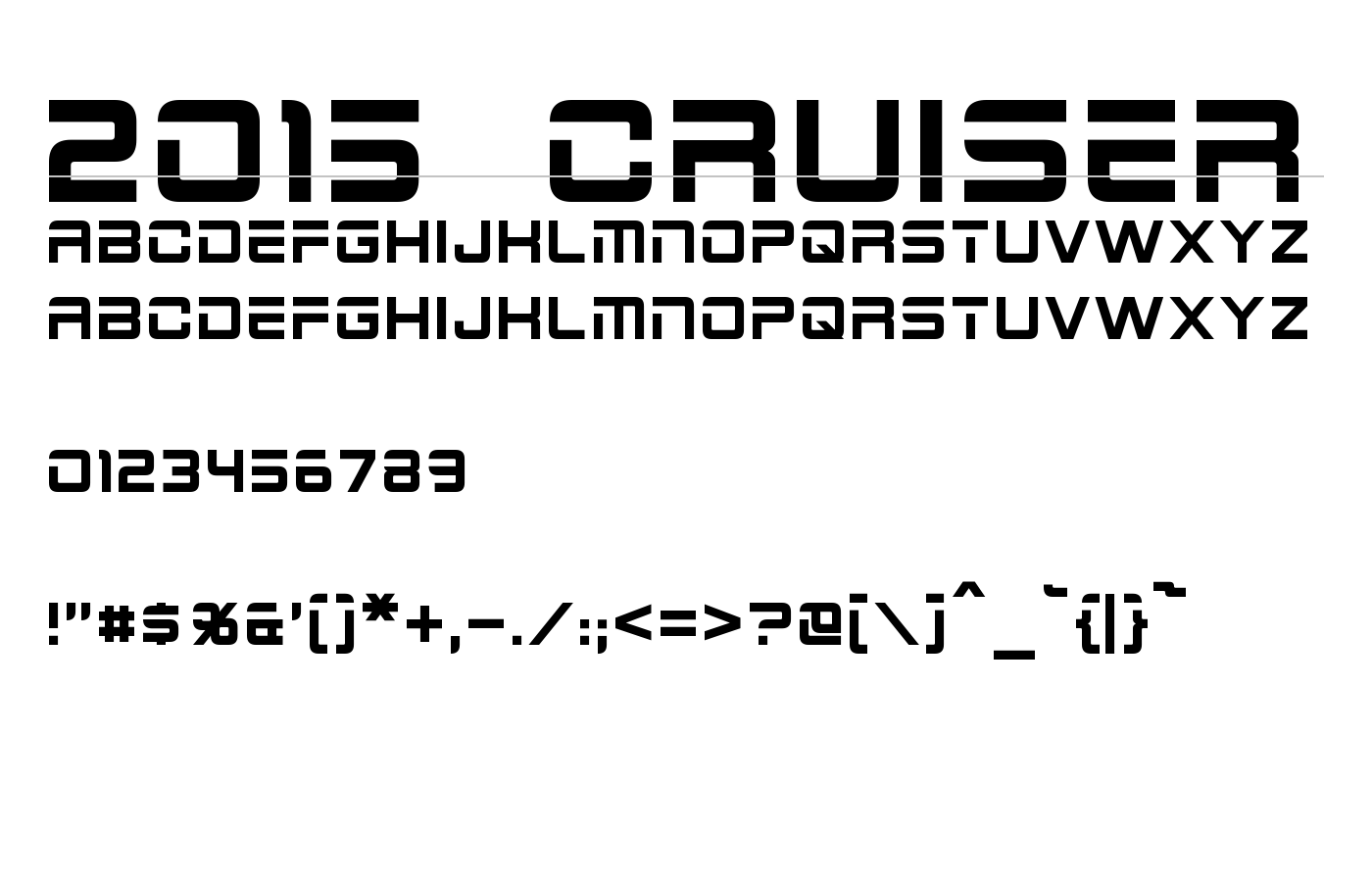
2015 Cruiser is a bold, futuristic sans serif font characterized by its wide, square shapes and distinctive cut-out elements that create a dynamic, tech-inspired look. Its uniform stroke weight and geometric structure make it ideal for modern branding, posters, and digital interfaces, where a strong, innovative presence is needed. This font works best in headlines and display settings, giving a sleek and contemporary feel that captures attention with its unique style.
2015 Cruiser Font
About 2015 Cruiser Font
| Font family | 2015 Cruiser Font |
| Designer | Neale Davidson |